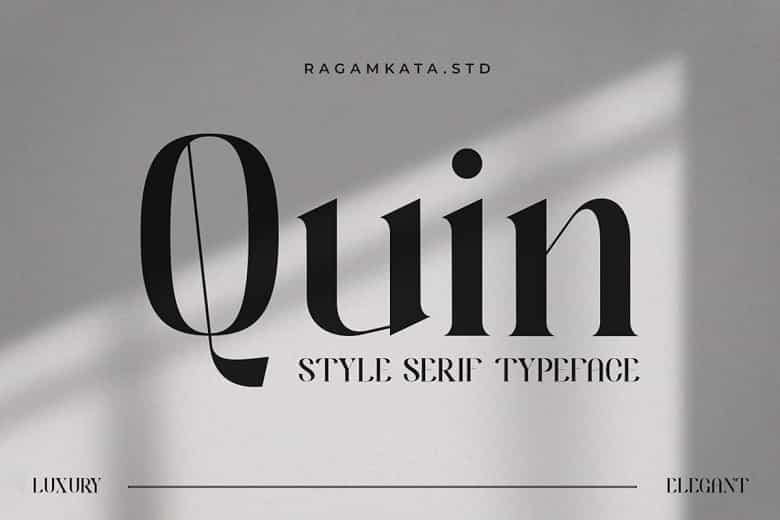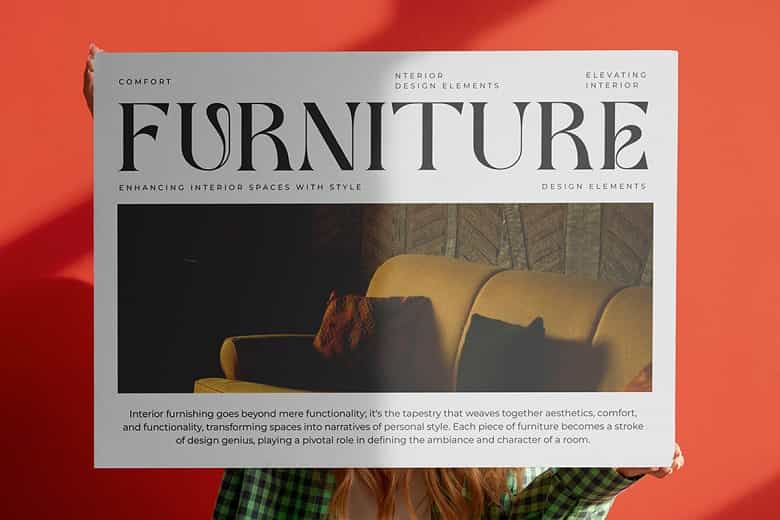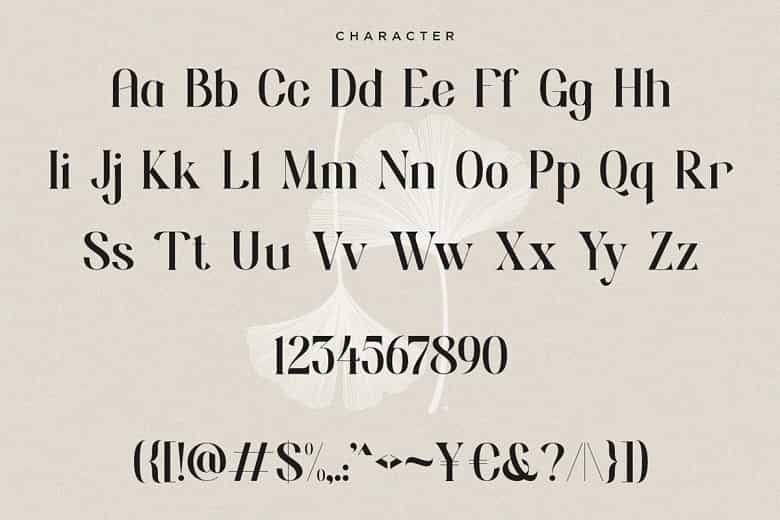
Quin is a beautiful serif typeface, it loves to be the focus of the design. It’s a classic, refined serif that looks great on large-scale headers and big text moments or stunning quotes. Quin was designed to be the absolute focus of everyone around her. Quin delivers an amazing contrast, it has organic shapes and is perfect for any luxury branding or typography works.